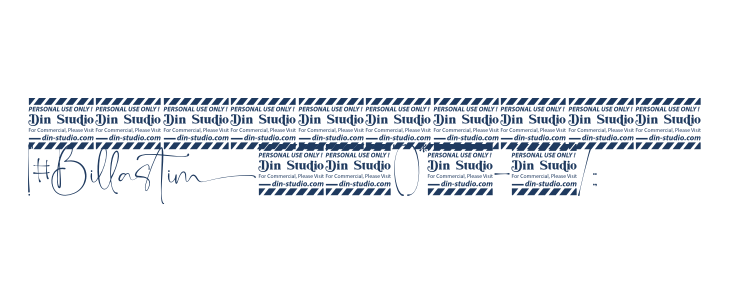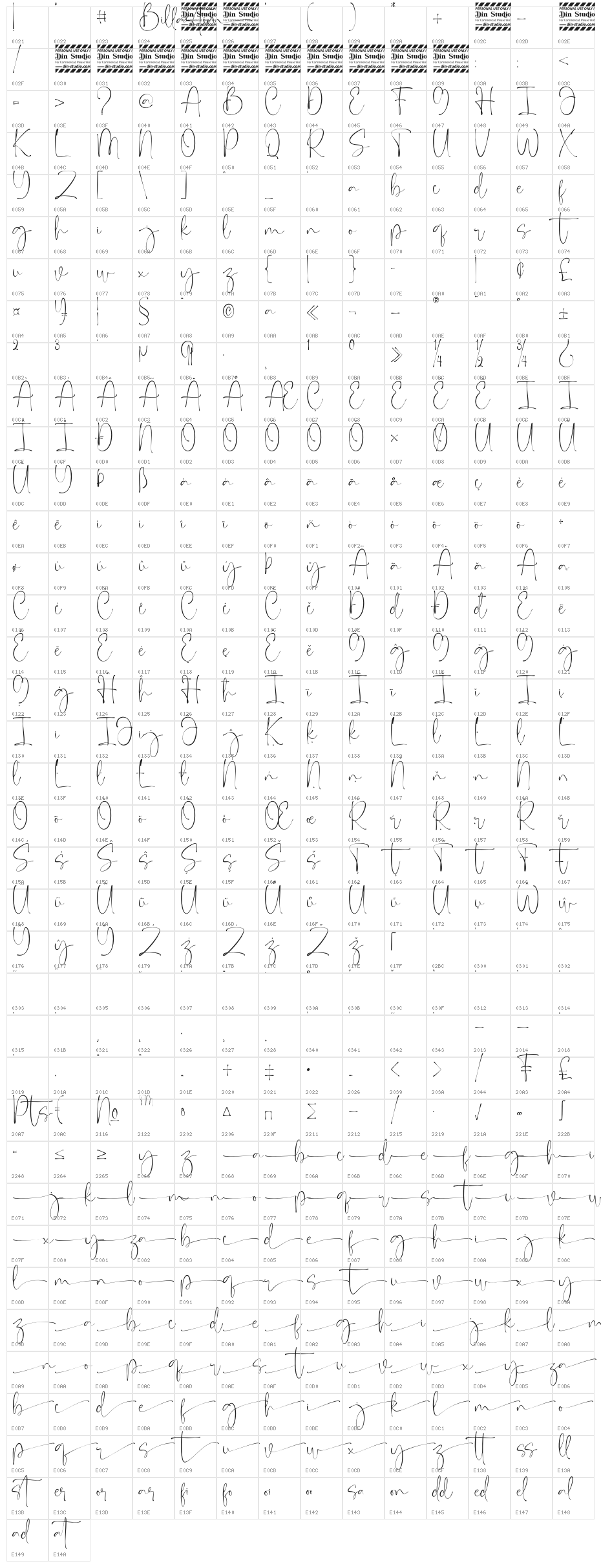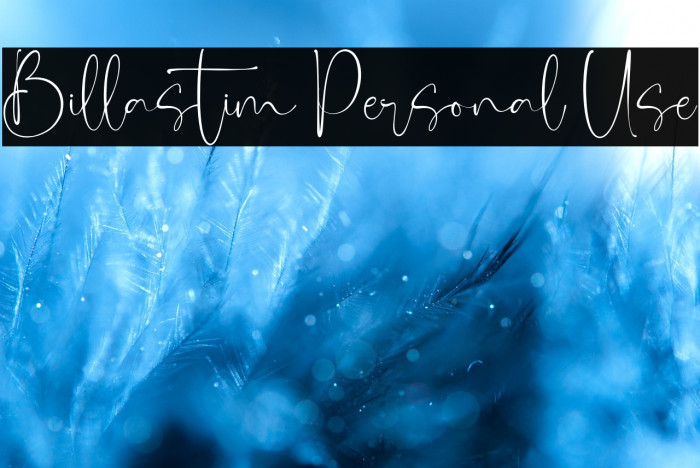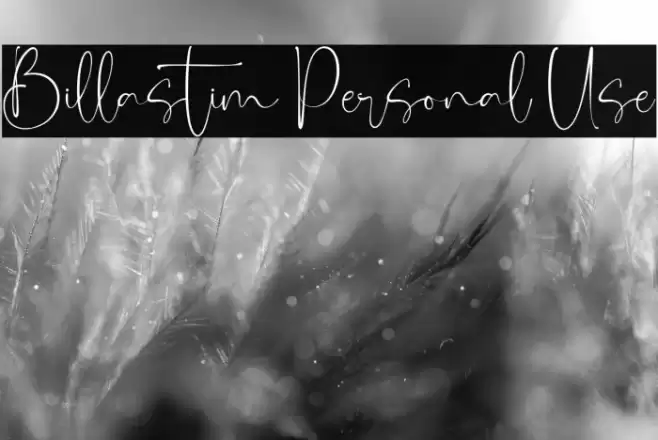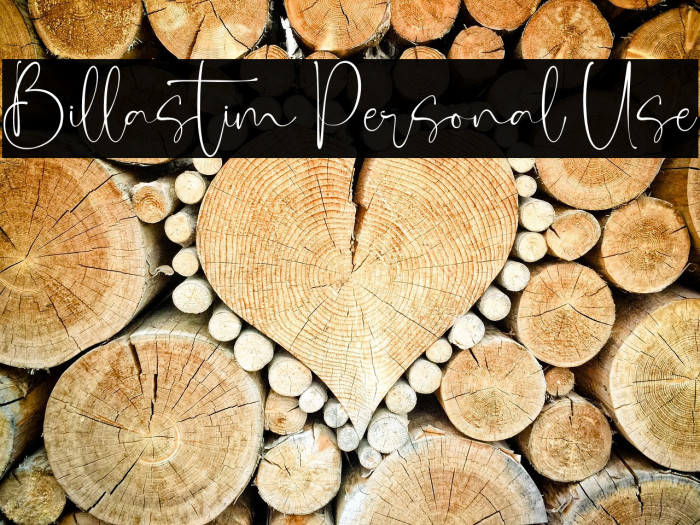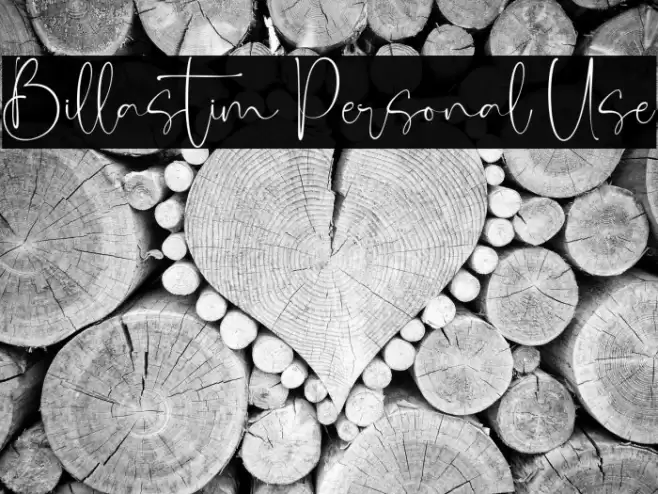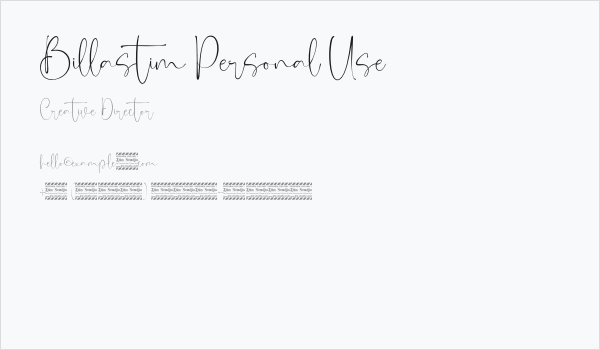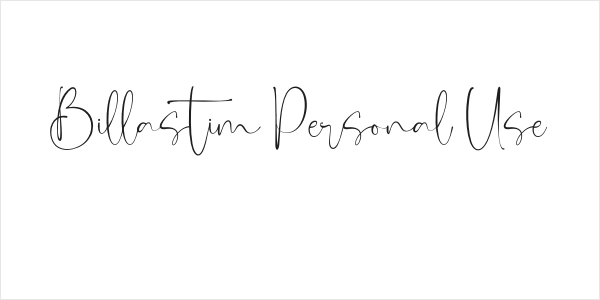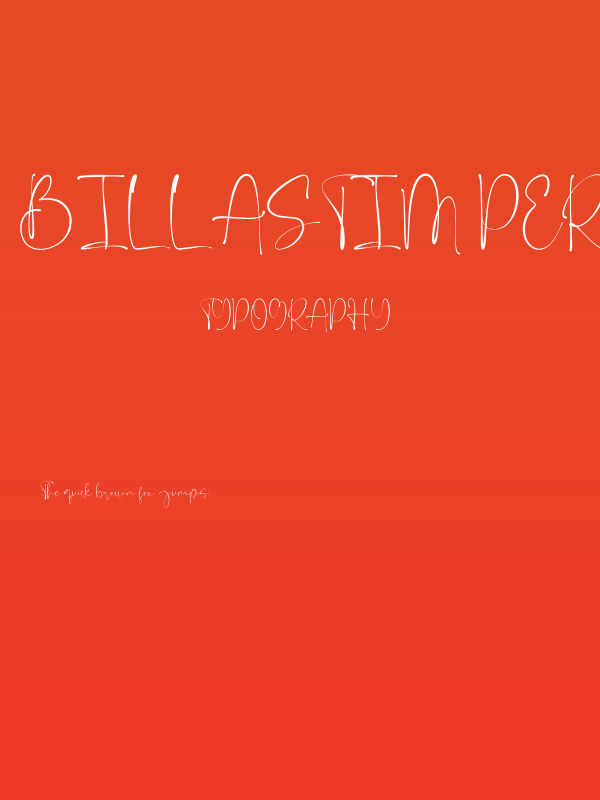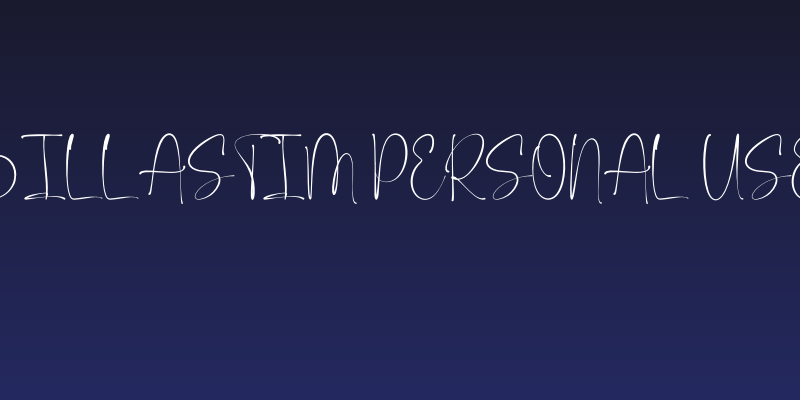
Billastim Personal Use Font
Billastim Personal Use Description
This font features a flowing, handwritten style with a modern and artistic flair. The uppercase letters are tall and slender, with elegant curves and loops that give a sense of movement and fluidity. The lowercase letters maintain this fluidity, with some characters extending below the baseline, adding to the dynamic appearance. The numbers and special characters are consistent with the overall style, featuring the same graceful curves and loops. The font's thin strokes and varying line thicknesses contribute to its delicate and sophisticated look, making it suitable for creative and expressive projects.